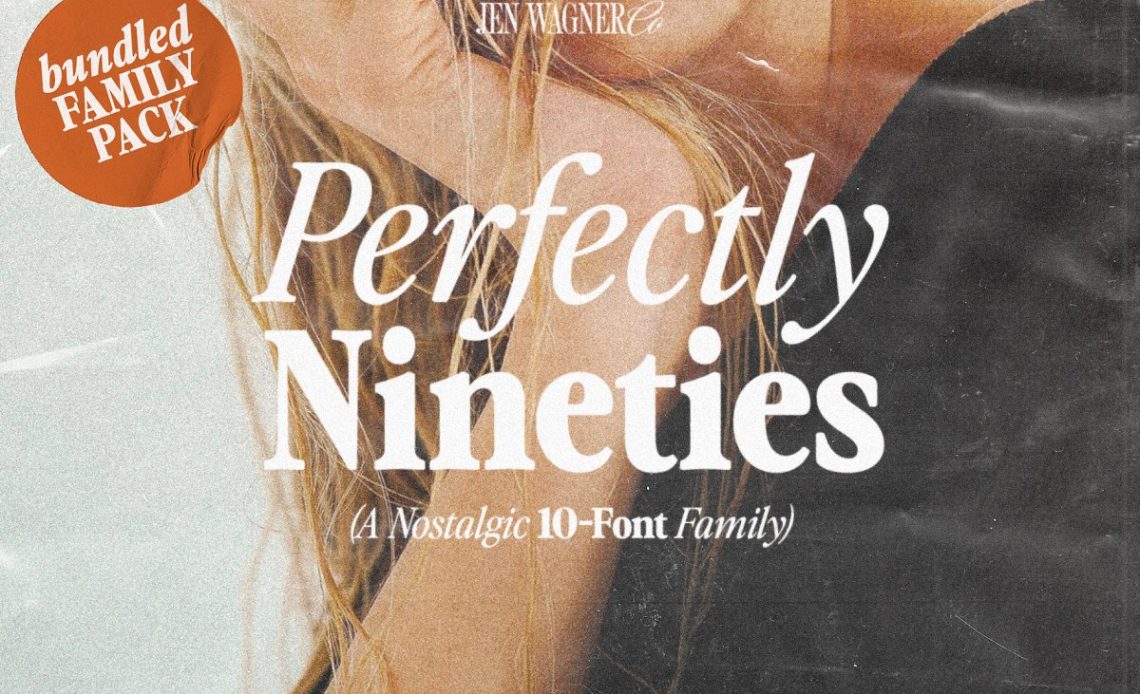
Looking for a beautifully nostalgic font that perfectly captures the classic serifs of the 80s and 90s? Look no further than Perfectly Nineties 10-Font Family! Created by renowned designer Jen Wagner, this expansion on Perfectly Nineties includes 10 stunning fonts, ranging from Regular weight to Black, both in regular and italic styles.
Whether you're using it as a display or body text, Perfectly Nineties looks incredible in both large and small settings. And for even more versatility, it pairs perfectly with Nineties Headliner, a nostalgic sans font also created by Jen Wagner, as well as Aguafina Script and Essential Sans.
But that's not the only reason to love Perfectly Nineties. With its intentional letter spacing, this font is perfect for clean reading as body type, but can also be used for display with just a little tweaking. And with its support for foreign languages and punctuation, the possibilities are endless.
So if you're looking for a versatile, eye-catching font that perfectly captures the nostalgic vibes of the 80s and 90s, look no further than Perfectly Nineties 10-Font Family.